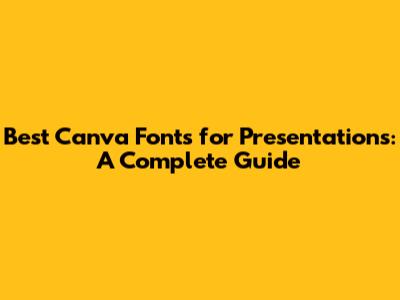
- Serif Fonts: These fonts have small decorative strokes, called serifs, at the end of each letter. They often exude a sense of tradition, sophistication, and authority. Serif fonts are a good choice for headings and body text in more formal presentations. Examples in Canva include Playfair Display, Merriweather, and Lora. They can provide a classic and elegant feel, making them ideal for presentations on topics such as history, law, or literature.
- Sans-Serif Fonts: Sans-serif fonts, as the name suggests, lack the decorative strokes. They appear clean, modern, and easily readable, especially on screens. They are a great choice for headings and body text in modern presentations. The best Canva fonts for presentations often include sans-serif options. Examples in Canva include Open Sans, Montserrat, and Lato. They work well for technology, business, and contemporary topics, offering a sleek and minimalist aesthetic.
- Display Fonts: These fonts are designed to grab attention and make a statement. They are often bold, unique, and used sparingly, usually for headings or key phrases. The display font is considered to be one of the best Canva fonts for presentations because it can grab the audience's attention. Examples in Canva include Bebas Neue, Anton, and Oswald. They add personality and visual interest to your presentation but should be used with caution to avoid overwhelming the viewer.
- Handwriting Fonts: Handwriting fonts mimic the look of handwritten text, adding a personal and informal touch. They are best used sparingly for accents, quotes, or short bursts of text. Finding the best Canva fonts for presentations includes knowing when to use these fonts. Examples in Canva include Dancing Script, Caveat, and Amatic SC. They can inject creativity and a touch of uniqueness into your design, suitable for presentations on creative topics or personal projects.
- For a Professional Look:
- Headings: Roboto (Sans-serif) - It is a versatile and widely used font. Its clean lines make it incredibly readable. Also, it strikes a balance between being modern and approachable. It is a workhorse font.
- Body Text: Open Sans (Sans-serif) - It is another highly readable sans-serif font. It is clean, friendly, and easy on the eyes, making it a great choice for extended blocks of text. The combination is a safe bet for a clean and professional appearance. The best Canva fonts for presentations consider this pairing.
- For a Modern and Sleek Aesthetic:
- Headings: Montserrat (Sans-serif) - A geometric sans-serif font known for its bold presence and excellent readability. It is perfect for making a statement.
- Body Text: Lato (Sans-serif) - Another popular sans-serif font that complements Montserrat well. It is elegant and offers great legibility. This pairing is trendy and works well for tech, business, and design presentations. Finding the best Canva fonts for presentations is easier with this pairing.
- For a Creative and Engaging Vibe:
- Headings: Bebas Neue (Display) - A tall, condensed sans-serif font that makes a bold statement. It is perfect for grabbing attention and adding a touch of edginess.
- Body Text: Poppins (Sans-serif) - A highly versatile font with rounded corners. It complements Bebas Neue's boldness while maintaining excellent readability. This pairing works well for creative and startup presentations. Choosing the best Canva fonts for presentations will take you here.
- For a Classic and Elegant Feel:
- Headings: Playfair Display (Serif) - An elegant serif font with high contrast. It is perfect for creating a sense of sophistication and class.
- Body Text: Open Sans (Sans-serif) - To provide contrast and readability, pair Playfair Display with a clean sans-serif font like Open Sans. This is a great choice for historical topics, literature, and luxury brands.
- Contrast: Effective font pairings often utilize contrast. This could be contrast in style (serif vs. sans-serif), weight (bold vs. regular), or size. Contrast helps to differentiate elements and guide the viewer's eye through your presentation.
- Consistency: While contrast is important, also maintain consistency in your design. Don't use too many different fonts, as this can make your presentation look cluttered and unprofessional. Stick to two or three fonts at most, using them consistently throughout your slides. The best Canva fonts for presentations are always about a balance between contrast and consistency.
- Complementary Styles: Choose fonts that complement each other's styles. For example, a modern sans-serif font might pair well with a classic serif font. Avoid pairing fonts that are too similar, as this can create a muddled effect. A safe bet is to use a heading font for the title and a body font for the content.
- Readability: Always prioritize readability. Ensure that your font pairings work well together in terms of legibility. Avoid using fonts that are difficult to read, especially in combination. Test your font pairings by creating a sample slide and reviewing it from a distance. Knowing how to pair fonts is essential for choosing the best Canva fonts for presentations.